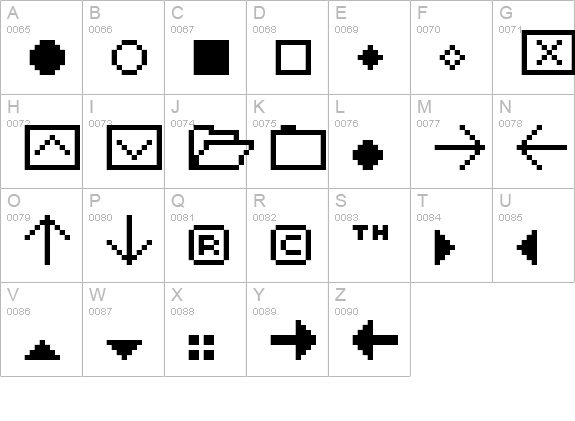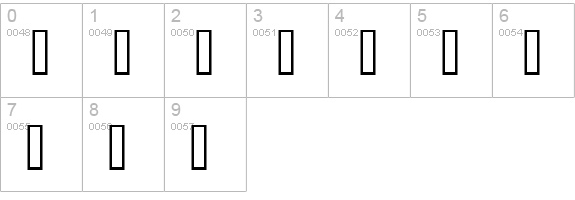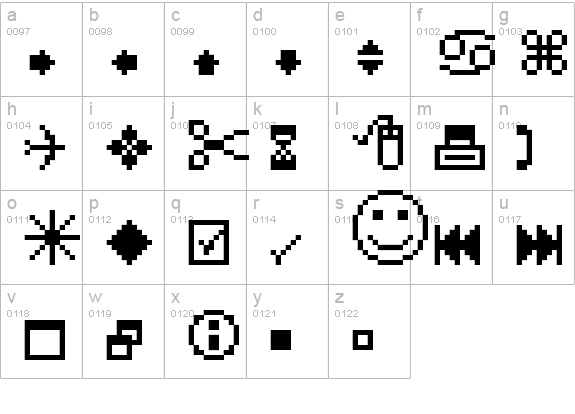
FFF Extras Font Details
The FFF Extras font is a versatile and creative typeface that adds a touch of playfulness to any design project. With a wide range of fun and quirky symbols and icons, this font is perfect for adding a unique and eye-catching element to your work. Whether you're designing posters, invitations, or social media graphics, FFF Extras has something for everyone. Best of all, FFF Extras is completely free to download at FontsMarket.com. This means you can easily enhance your designs with this delightful font without any cost. So why wait? Download FFF Extras today and let your creativity shine!